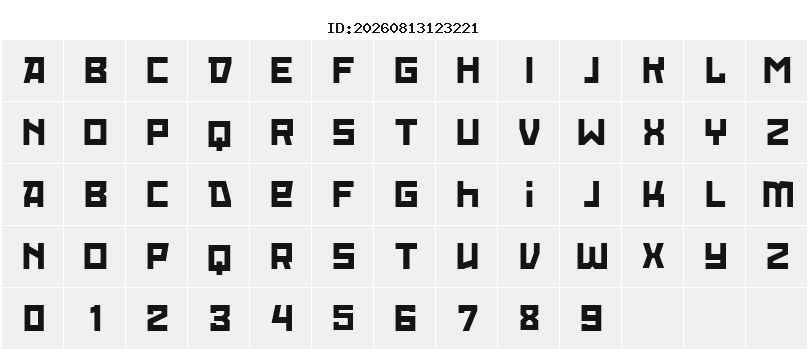
Red October Preview
• Font Name: Red October
• Font ID: IvanFilipov,NeogreyLtd: Red October: 2008
• Full Font Name: Red October
• Designer: Ivan Filipov
• Manufacturer: Ivan Filipov, Neogrey Ltd
About Red October.ttf
Red October.ttf is a modern, elegant sans-serif font designed for ultimate readability and visual harmony. Perfect for branding, headlines, web design, and print materials.